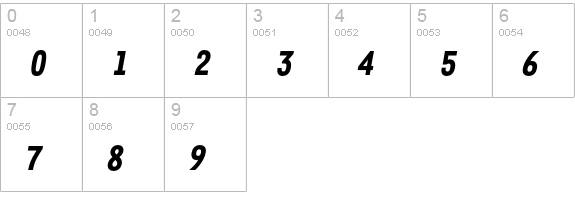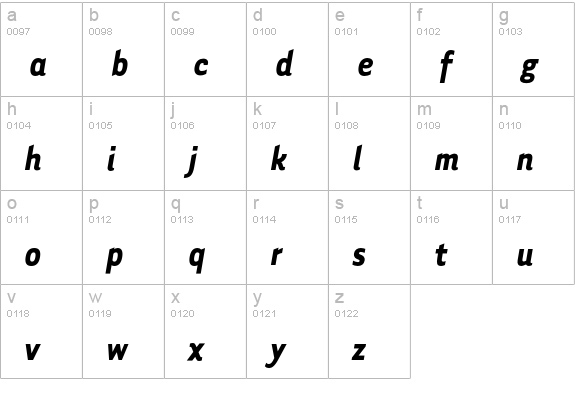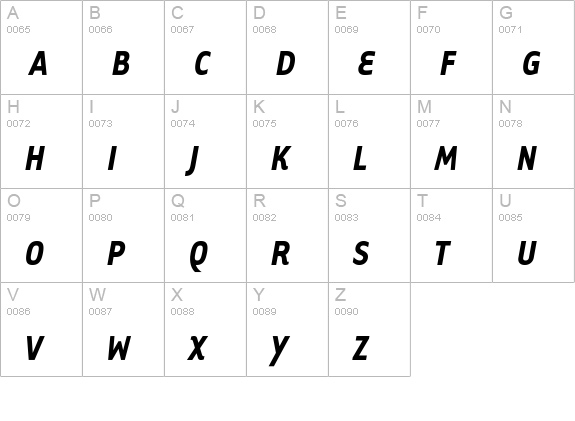
TarzanaNarrowBoldItalic Font Details
TarzanaNarrowBoldItalic is a stunning and versatile font that adds a touch of elegance and sophistication to any design project. With its sleek and slender letterforms, this font exudes a sense of modernity and grace. The bold and italic styles further enhance its visual impact, making it perfect for headlines, titles, and branding materials. This font not only captivates with its stylish appearance but also with its exceptional legibility. Each character is meticulously crafted to ensure clarity and readability, even at smaller sizes. Whether used in print or digital mediums, TarzanaNarrowBoldItalic delivers a flawless reading experience. One of the most remarkable aspects of this font is that it is free! Yes, you read that right. TarzanaNarrowBoldItalic is freely available for download at FontsMarket.com. This means that you can effortlessly elevate your designs without spending a dime. With just a few clicks, you can have access to this remarkable typeface and explore its endless creative possibilities. Whether you are a professional graphic designer, a student working on a school project, or simply someone looking to add a touch of sophistication to personal creations, TarzanaNarrowBoldItalic is the perfect choice. Its combination of sleekness, boldness, and italics offers a versatile range of design options, allowing you to effortlessly create eye-catching visuals that leave a lasting impression. Download TarzanaNarrowBoldItalic for free at FontsMarket.com and experience the beauty and versatility of this remarkable font. Embrace the elegance and sophistication it brings to your designs and unlock your creativity with every stroke of the keyboard.